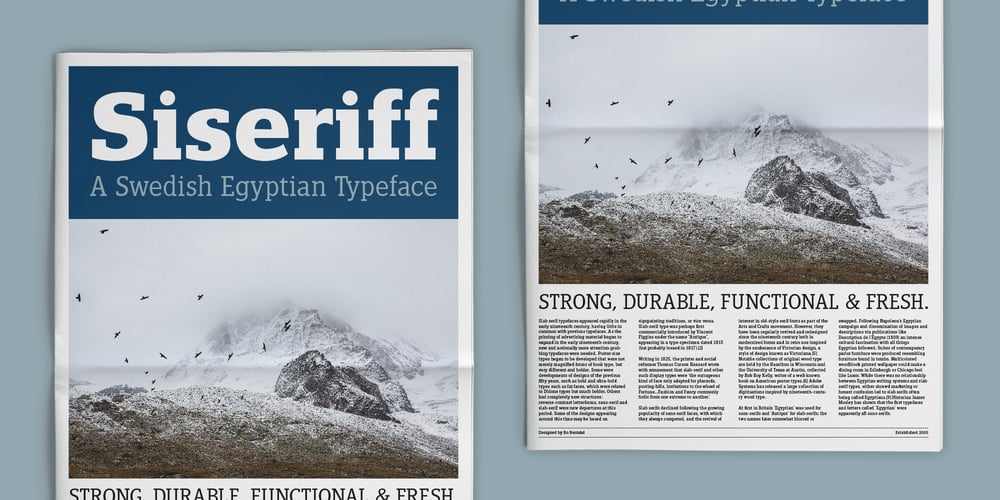
Siseriff Font Family was designed by Bo Berndal and published by Linotype. Siseriff contains 9 styles and family package options. The Siseriff family of types contains nine different styles, which were developed by the master Swedish typographer Bo Berndal in 2002. Siseriff is a contemporary slab serif face. Except for the Siseriff Black weight, all of the letters display a slightly condensed appearance that is coupled with a relatively uniform width throughout the alphabet. Siseriff’s nine styles are distributed across five weights (Light, Regular, Semi Bold, Bold and Black). The Italic companions for these styles (Siseriff Black does not have an italic companion) are true italics. These redrawn italics add a higher degree of differentiation from the Roman weights than could be achieved with obliques alone. Many common Slab Serif families (e.g., Serifa) do not offer this degree of differentiation. This variety makes Siseriff the perfect choice for journalistic and editorial work, where a good hierarchy may be achieved solely by relying on the various weights available, and their italics. All nine styles of the Siseriff family are part of the Take Type 5 collection from Linotype GmbH.”